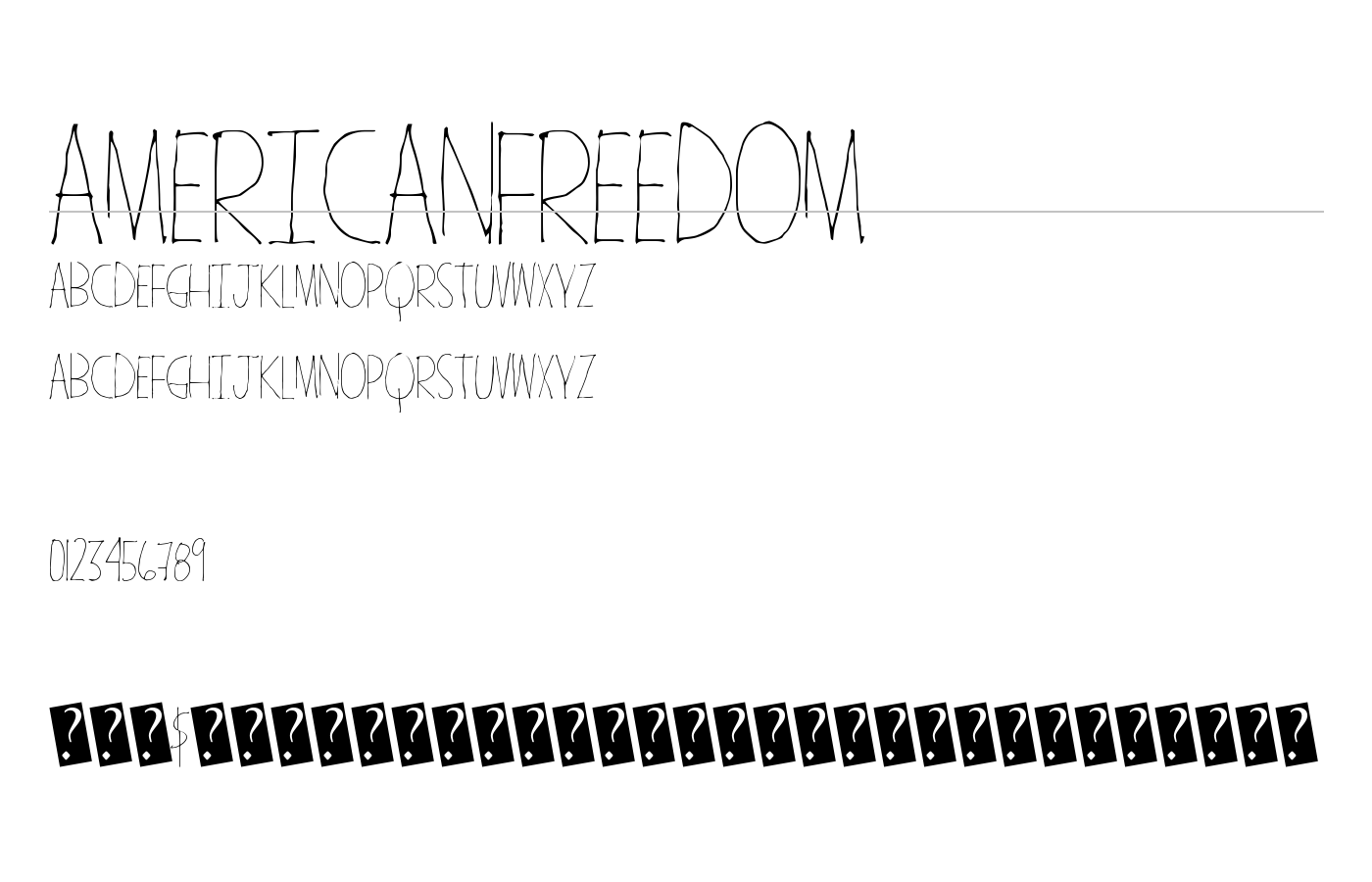
AmericanFreedom is a narrow, hand-drawn sans serif font with thin, uneven strokes that create a quirky and informal look. Its tall, delicate letterforms carry a playful, artistic vibe, making it ideal for creative projects, casual branding, or designs that seek a unique, handcrafted feel. This font works best in display use where its distinct personality can stand out, such as posters, headlines, or personalized invitations.
AmericanFreedom Font
About AmericanFreedom Font